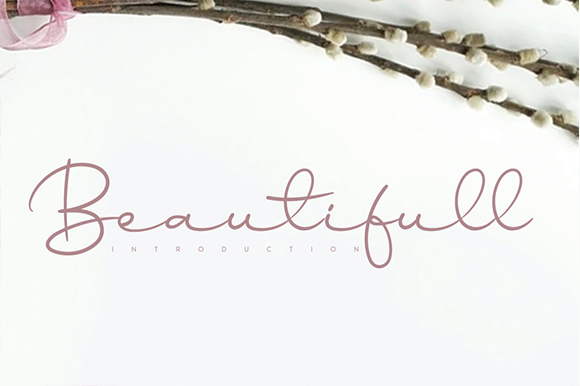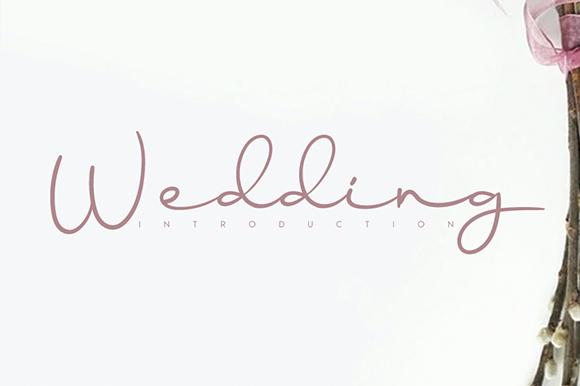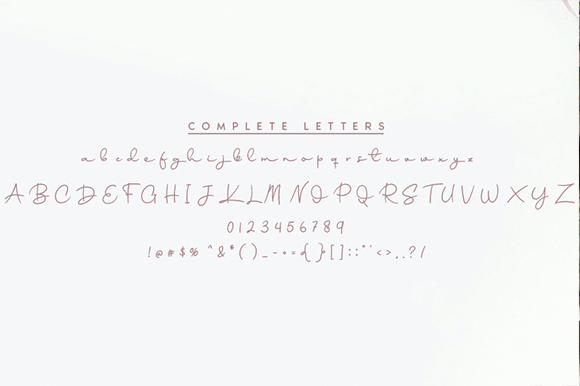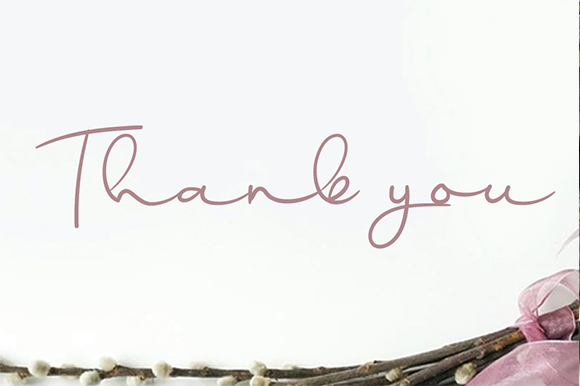
Ballyamh Signature Font
About Ballyamh Signature Font
Ballyamh Signature is an exquisite handwritten font, masterfully designed to become a true favorite. It maintains its classy calligraphic influences while feeling contemporary and fresh. Fall in love with this font and bring your projects to the highest levels!